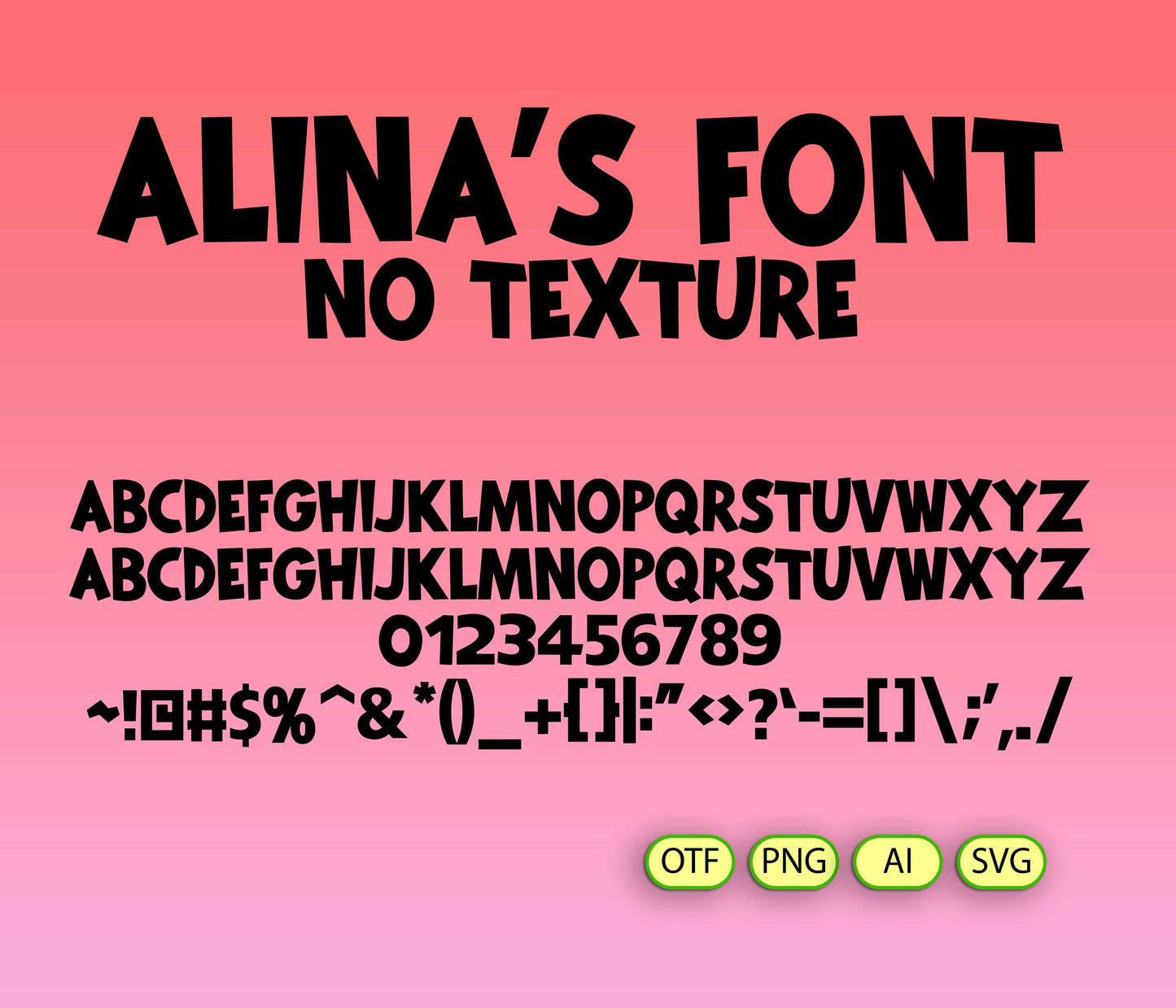
Chaotic Home Font
Step into the bustling world of a supersized family with our specially designed font, capturing the essence of life with eleven siblings under one roof. Perfect for fans, animators, event organizers, and designers, this font brings the energetic, crazy spirit of daily chaos to your projects. Create event invitations, themed merchandise, or digital content with the lively energy of this beloved animated household.
Our Chaotic Home font features playful, dynamic characters reflecting the energy of a house full of siblings. Ideal for:
- Event Promotions: Striking invites, posters, banners for family events, themed parties, celebrations
- Merchandise Design: T-shirts, posters, accessories capturing the essence of sibling mayhem
- Digital Media: Enhance websites, blogs, social media with energetic headers and graphics
- Animation Content: Authentic flair for fan art, character designs, themed decorations
- Personal Projects: Family chaos energy for scrapbooking, DIY crafts, home decor inspired by daily adventures
Our font pays tribute to the joys of big family life, empowering your designs with its energetic and chaotic spirit. Whether crafting promotional materials, designing merchandise, or adding a lively touch to personal projects, this font communicates the beloved essence of sibling adventures. Ready to inject some family chaos into your creations? This font is your key to dynamic, impactful design.